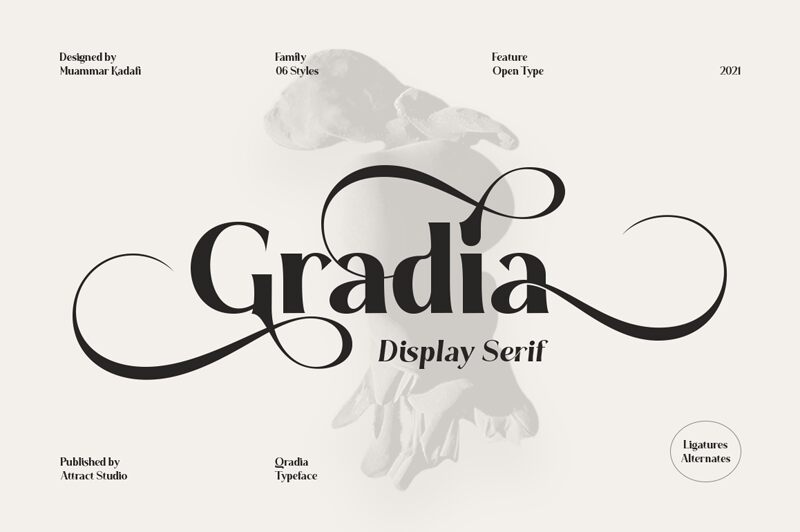
Gradia Light, a captivating serif font crafted by Attract Studio, exudes a refined elegance and timeless charm. The delicate, harmonious strokes effortlessly blend modernity and tradition, creating a visually striking balance. Its clean lines and subtle curves lend a sense of sophistication, making it a versatile choice for a wide range of design projects.
Gradia Light's versatility shines through its ability to seamlessly complement both contemporary and classical design aesthetics. Its refined aesthetic lends itself well to editorial layouts, branding materials, and high-end publications, where it can elevate the overall visual impact and convey a sense of refinement and professionalism.
Gradia Light
Attract Studio
Muammar Kadafi